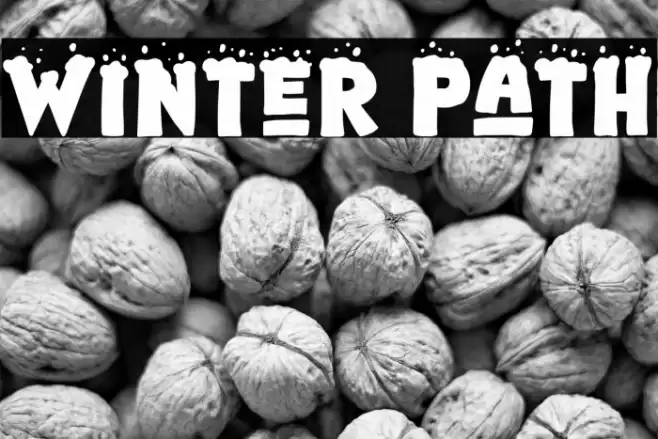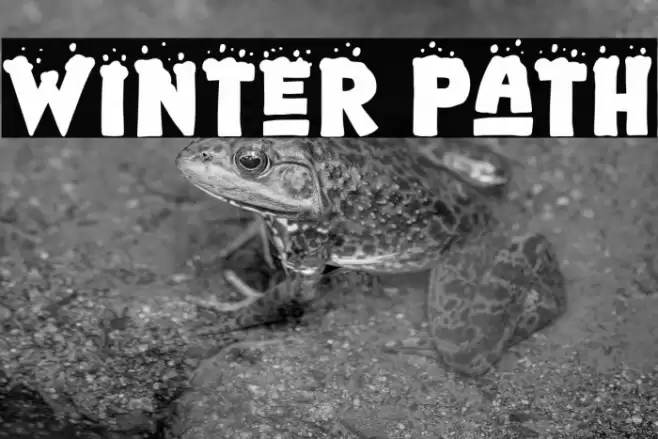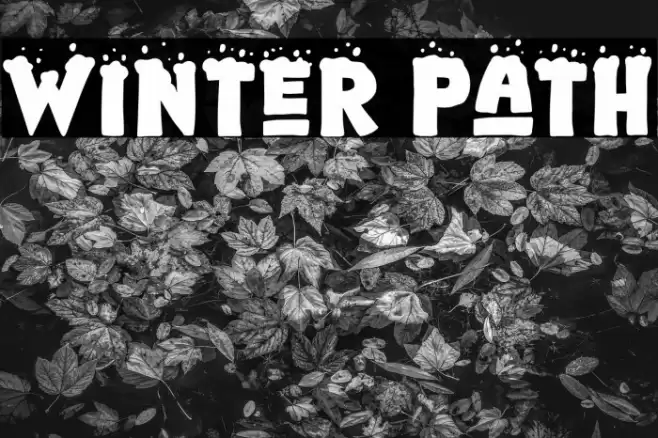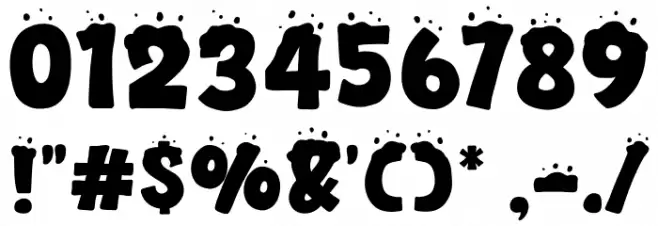
Winter Path Font
Winter Path Description
This playful and bold font features a unique design with snow-like dots adorning the top of each character, evoking a whimsical winter theme. The characters are thick and rounded, giving a friendly and approachable feel. The uppercase and lowercase letters maintain a consistent style, with a slightly irregular shape that adds to the charm. Numbers and special characters are equally bold and maintain the decorative snow motif. This font is ideal for projects that require a fun and festive touch, perfect for holiday-themed designs.
A playful, bold font with snow-like dots, perfect for festive designs from Uncategorized fonts.
- Proposed Projects: Ideal for holiday cards, winter-themed posters, children's book covers, and festive event invitations.